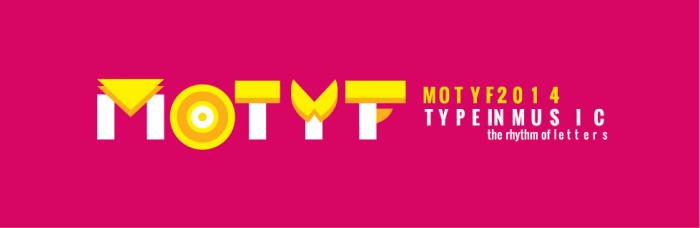
MOTYF — Second International Students' Moving Type
MOTYF 2014 / TYPE IN MUSIC: International Students’ Moving Type Festival
will take place for the second time in Warsaw from May 30th till June 1st.
The collaboration with German schools resulted in this unique event in Europe.
The festival is composed of workshops, a conference and students’ film projections. MOTYF is an opportunity to discover moving type in the field of experimental art, movie titles, videoclips and advertising.
Professionals and lecturers from many countries will share their knowledge about dynamic text. They will introduce visualization concepts based on text in relation to sound. New informatics tools will be demonstrated in order to generate image based on sound. Students’ works, selected by an international jury will be shown in the cinema Muranów, on May 30th at 7 pm. during the opening to the public show, as well as in Solec club and at the conference in the Japanese Institute of IT. The festival is a chance to discover the creativity of young designers and new graduates.
The conference is taking place at the Polish-Japanese Institute of IT,
Jan Kubasiewicz: Sound—Image—Text—Motion. An Overview of Audiovisual Explorations
This presentation examines a concept of complementary relationships of sound, image, text and motion as the languages of expression and communication. Historical in method, it discusses the work of selected artists, designers, inventors and innovators in the context of dynamic media communication practice and its pedagogy.
Werner Lemberg: A survey of the history of musical notation / Legibility issues of text in vocal scores
A survey of the history of musical notation: This lecture shows the various ideas musicians, calligraphers, and typesetters had to represent music, starting with the ancient Greek and Chinese culture, covering the early prints of the Renaissance, and ending with today's computer typesetting.
Legibility issues of text in vocal scores: How fonts can influence the readability of vocal scores, especially of operas. This talk discusses practical considerations collected over the years while working as a professional singers' coach at various theatres.
Brody Neuenschwander: Text as art and e(M)otion
A talk about the roll of text in the art of the 20th and 21st centuries, beginning with the work of Duchamp and Picasso, continuing with Surrealism and Futurism and considering Pop, Conceptual and Post-Conceptual work. The situation in non-Western cultures will also be considered, looking at calligraphy in Arabic/Islamic culture and also in China and Japan; and asking how these traditional arts are faring in the modern world. I will also present my own work, including work for film and media.
Filip Blažek: Ēűřøpęåñ Ðïàçŕĭțıċŝ
The Latin alphabet was adopted by the majority of European nations. In many languages, the basic repertoire of letters did not cover all the phonemes. Several solutions were invented to represent missing sounds – digraphs, accents and special letters. Nowadays, most of the European languages written with Latin alphabet benefit from using accented letters and digraphs, special letters are quite rare and apart from German ß and Icelandic þ and ð are not used anymore. With the exception of English, all European languages rely on accents to facilitate the understanding and pronunciation. The presentation will focus on the phenomenon of European diacritics: from the problems users face in electronic communication, to the challenges for type designers.
Baris Atiker: Naming Type in Motion
The interaction of typography with motion pictures comes up with a definition problem due to the physical understanding in both formal and functional perspectives. The terms such as 'motion', 'dynamic', 'fluid', 'virtual', 'temporal' are commonly used by the designers (and design theorists) basically to explain the nature of type in motion but still missing the best correspondance. This paper will try to evaluate the new design principles for better understanding the type in motion rather than exploring a 'one' word definition.
Adam Cooke: Design Eduction & the workshop model / Lo-fi touch technology prototypes in the field
This workshop brought together conductive technologies and open source technologies to deliver content in a public space via audio. The workshop actively encouraged play, experimentation and failure within the possibilities of a prebuilt system. Workshop students were made up from a range of disciplines, were at various stages of their education, and employed and utilised a diverse skillset. Gaps where left in the introduction to actively develop prototypes in context. This presentation aims to share the prototypes from the workshop whilst describing the techniques and methodology used.
Jacek Rokosz: Art of the Title Sequences
STUDENTS’ FILM
A selection of international students' and young graduated films' projection in 6 different categories:
1. video clip
2. movie titles
3. education — text, sound and image
4. visual poetry
5. art & experimental — text, sound and image
6. advertising